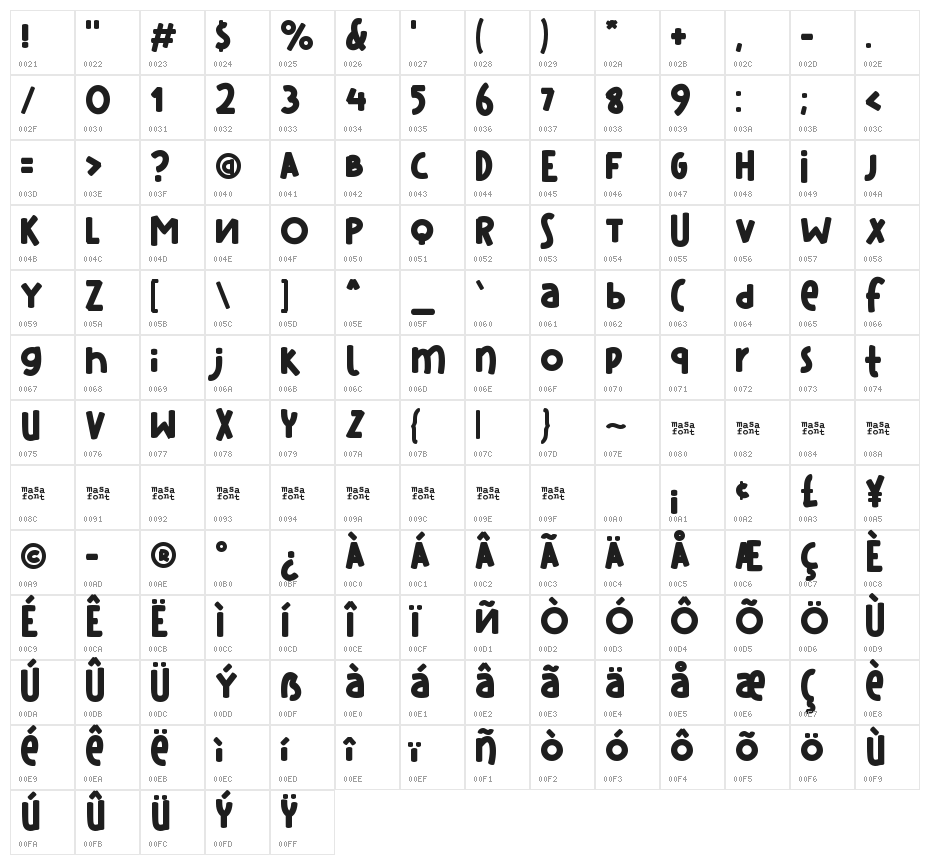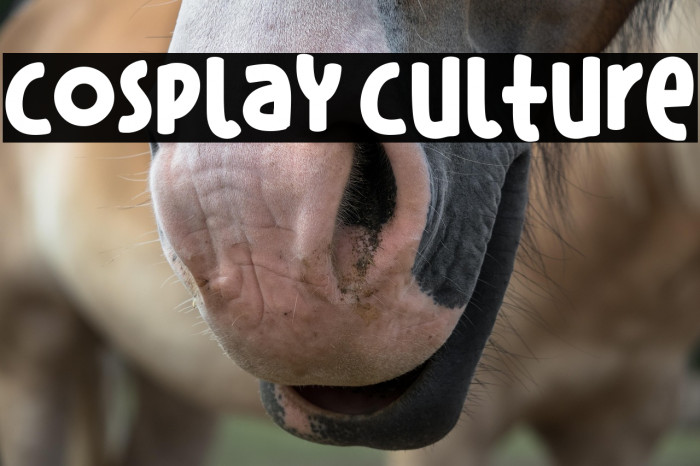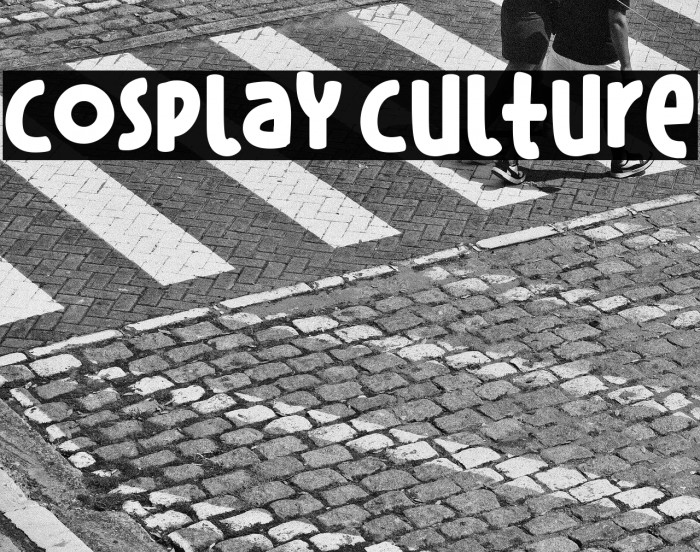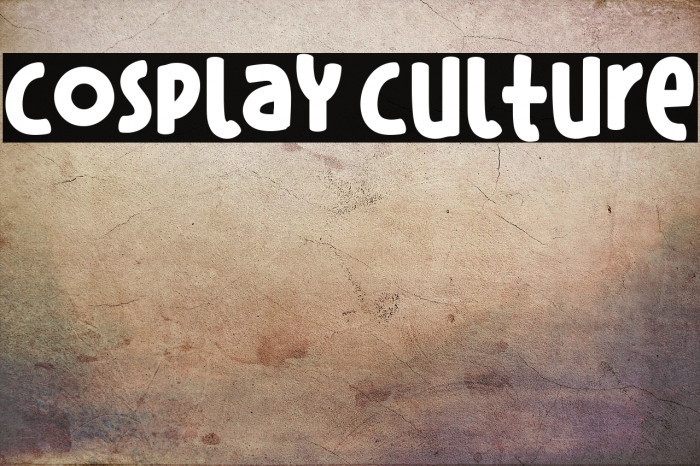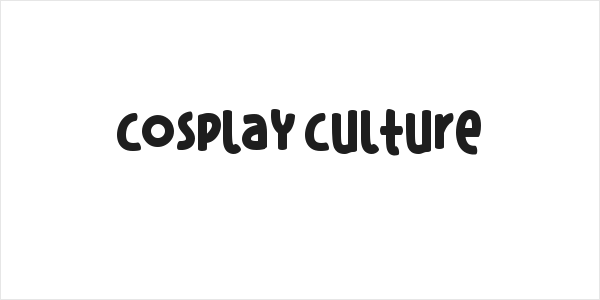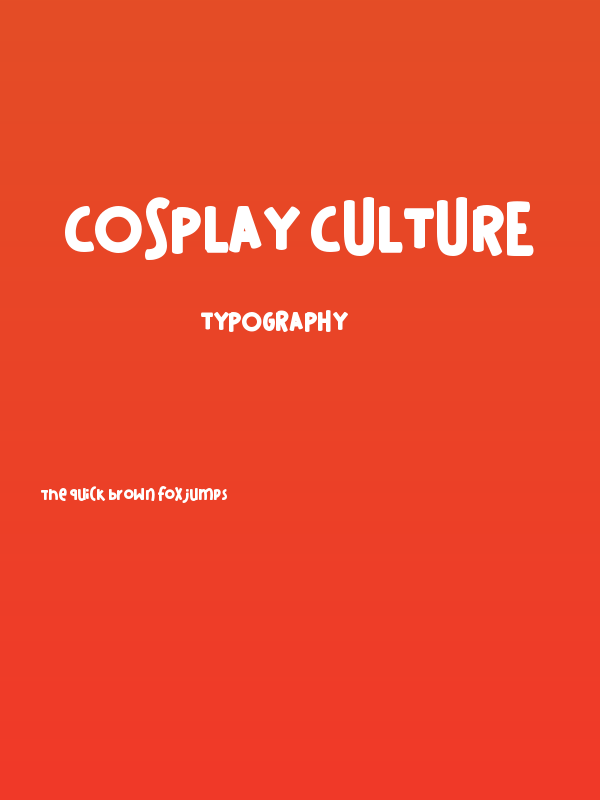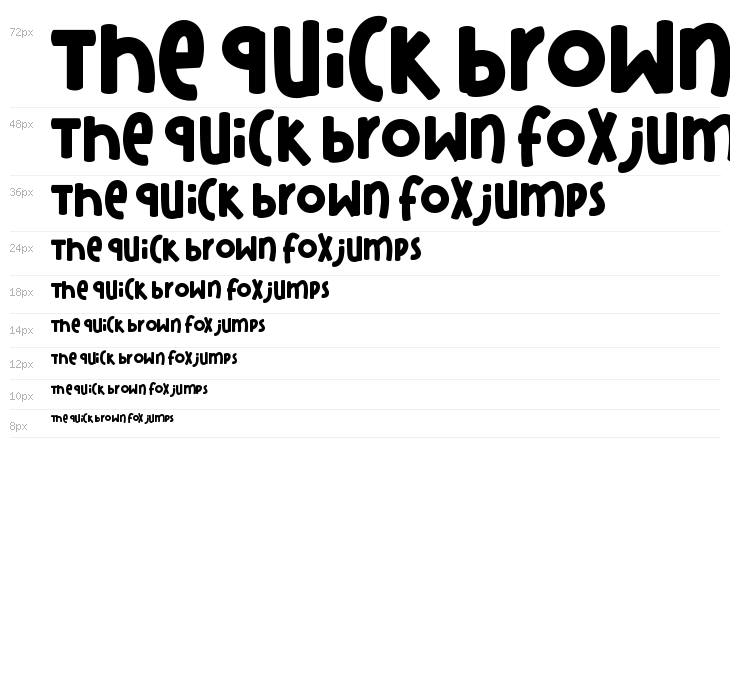
Cosplay Culture Font
Cosplay Culture Description
This playful and bold font features a whimsical and cartoonish style, characterized by its thick, rounded strokes and slightly irregular shapes. The uppercase and lowercase letters maintain a consistent, friendly appearance, making it ideal for projects that require a fun and approachable look. The numbers and special characters follow the same design ethos, ensuring a cohesive visual experience. Its boldness and unique character make it stand out, while the rounded edges add a touch of softness and approachability. This font is perfect for capturing attention and conveying a sense of fun and creativity.
Overall StylePlayful, Whimsical, Cartoonish
Proposed ProjectsIdeal for children's books, comic strips, playful branding, and event posters.